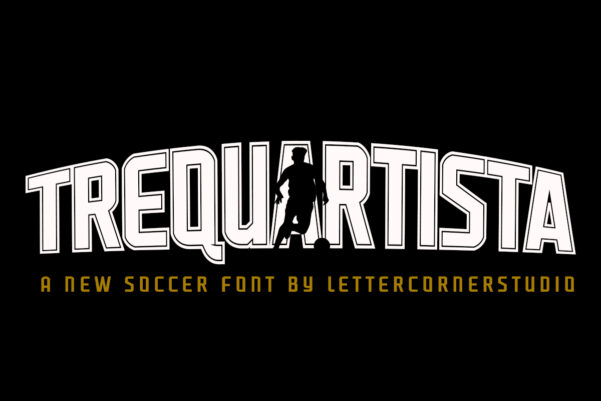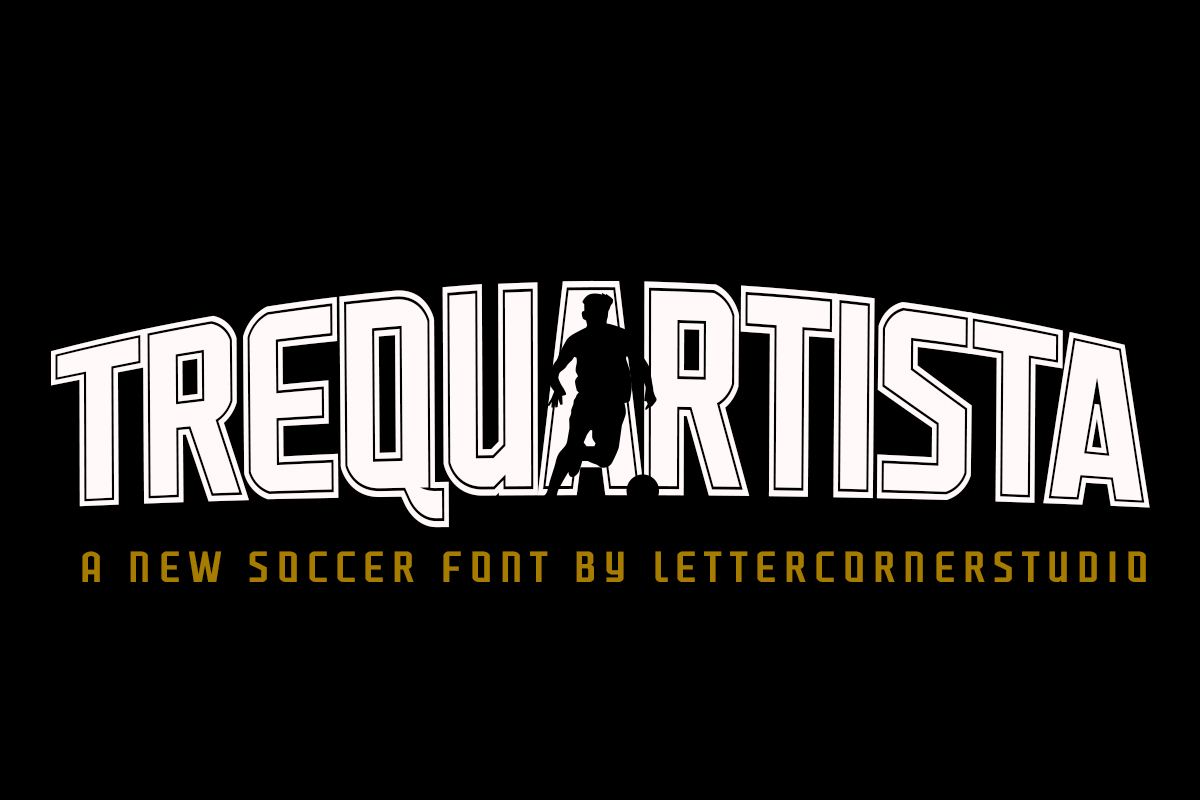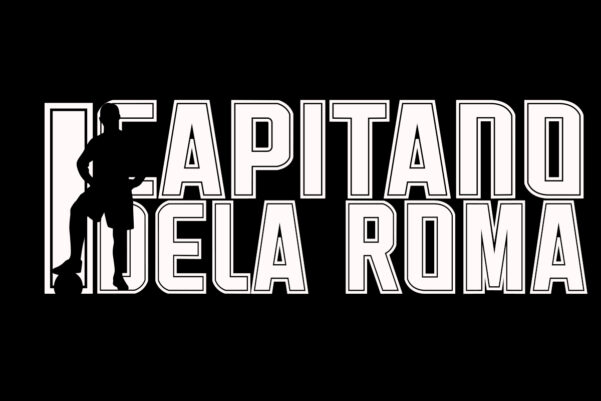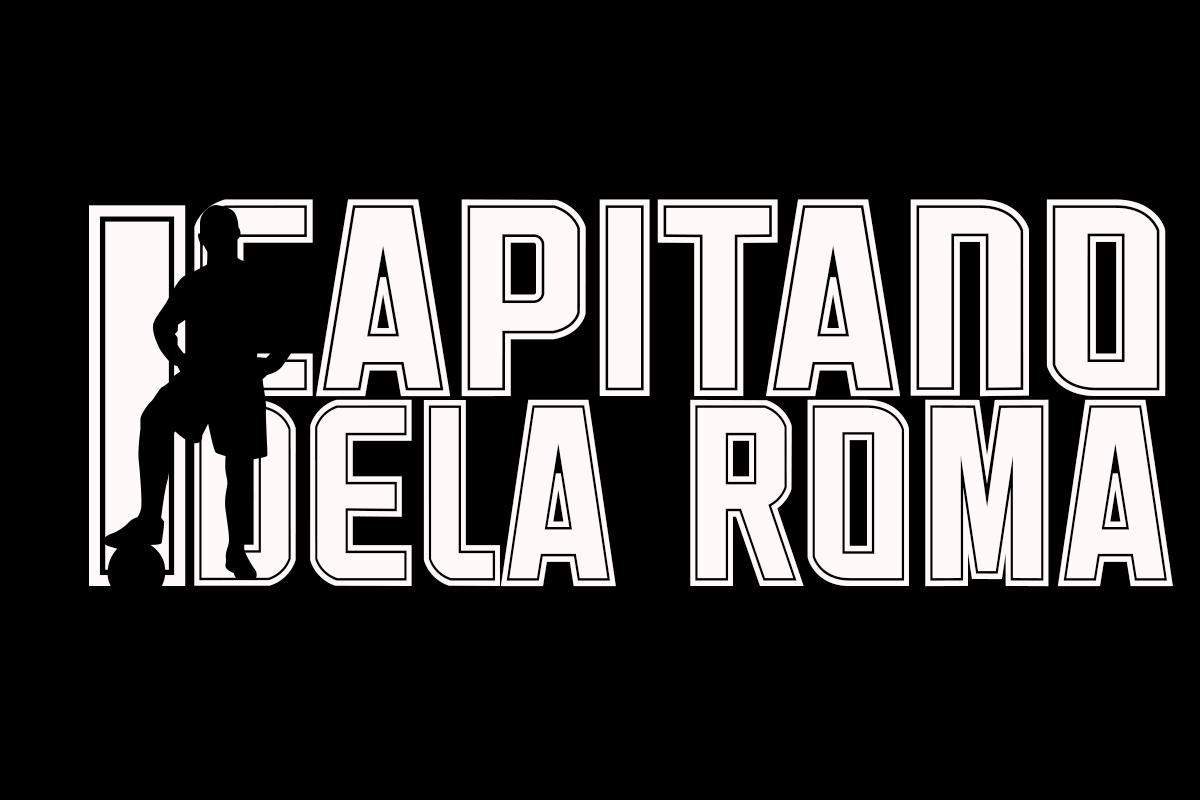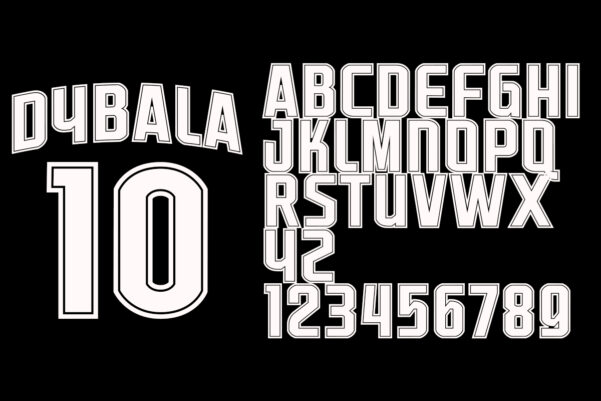
Trequartista — Elegant Inline Display Font
Trequartista is a display font with a strong character and an unmistakable personality. Built on letterforms that are bold yet organic, it features an inlinedetail — a fine line flowing through the body of each letter — as its defining element. That detail is no mere ornament; it creates a visual rhythm that makes every word feel alive and substantial.
With over 211 glyphs including full Latin character support, Trequartista is designed for large scales — headlines, covers, branding, and any situation where typography needs to speak before the words are even read.
Its “Q” is a moment of its own: a tail curving outward from the circle, adding an unexpected beat that gives the entire set a sense of life.
Perfect for branding, posters, logos, apparel, and editorial headlines that demand a visual presence that lingers.